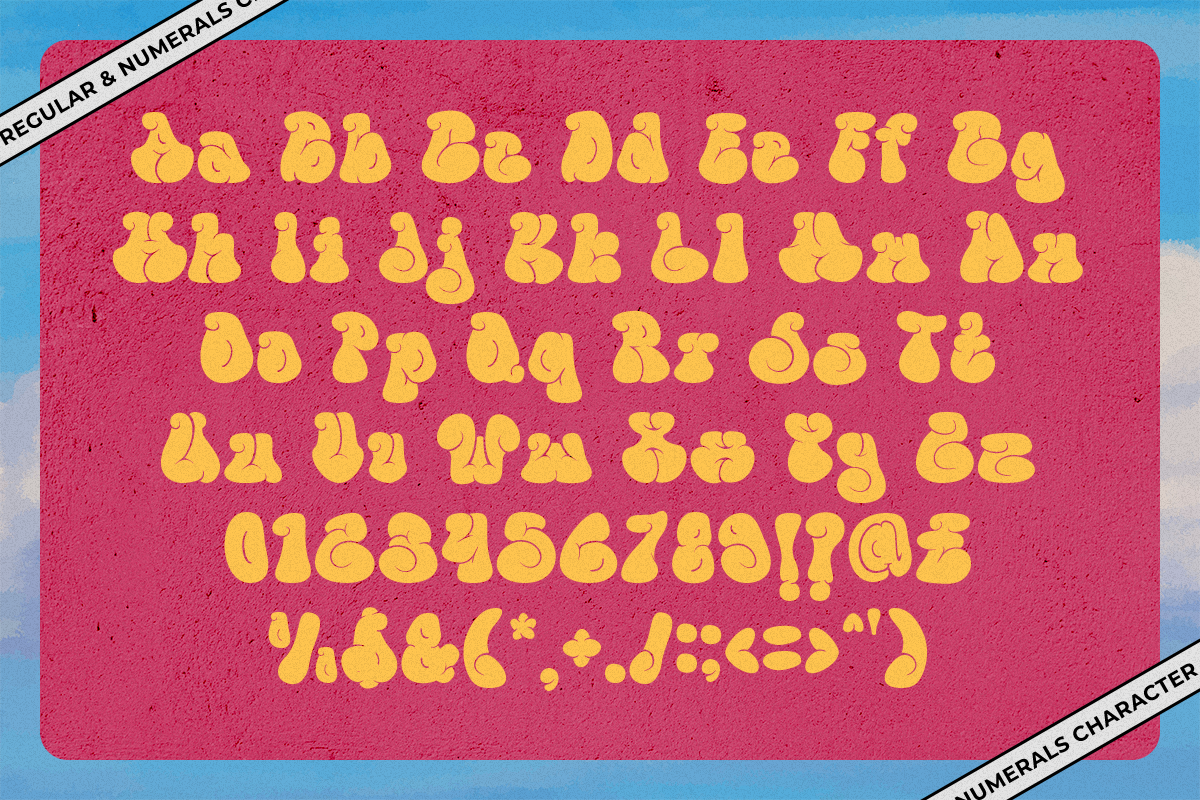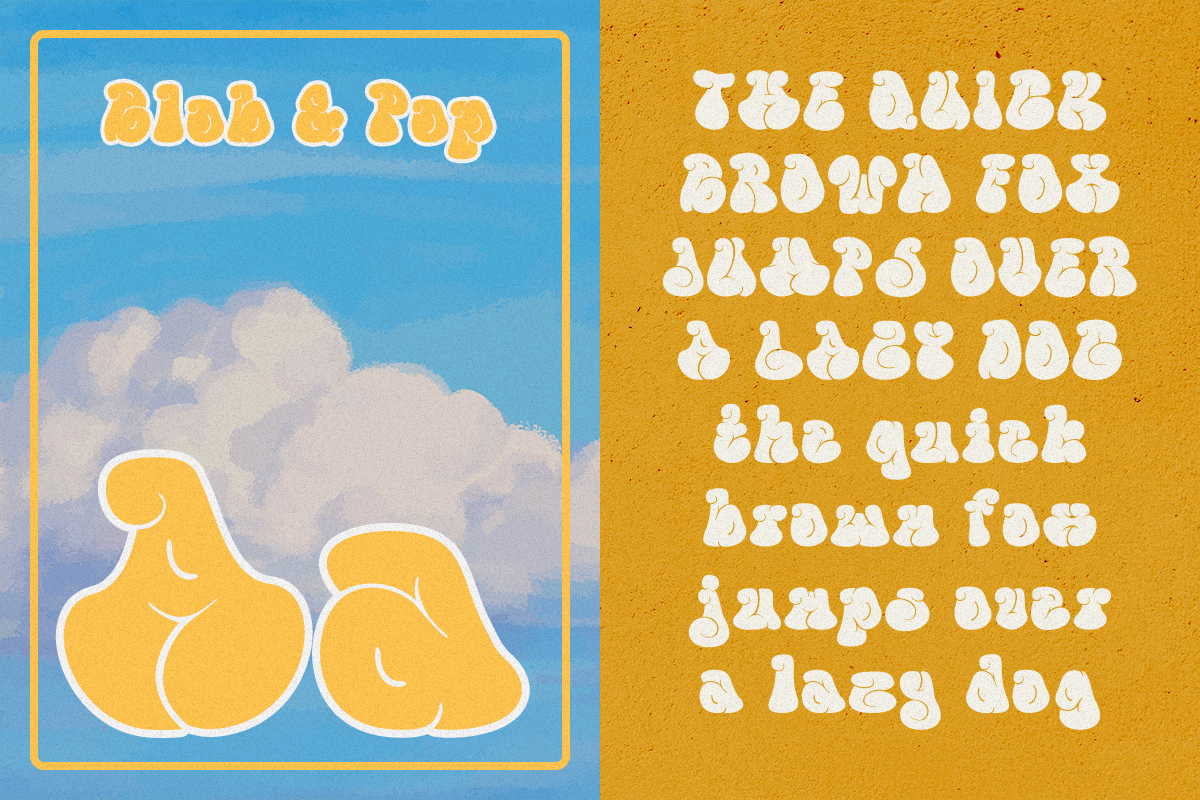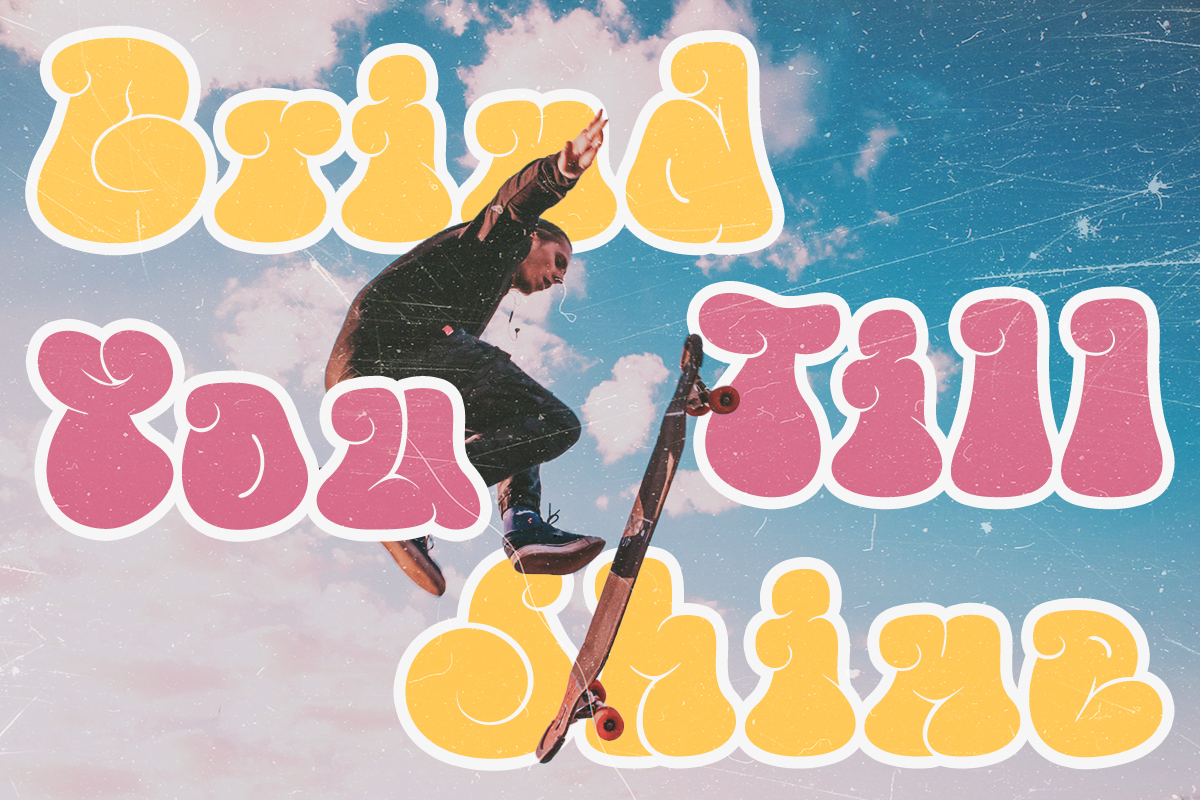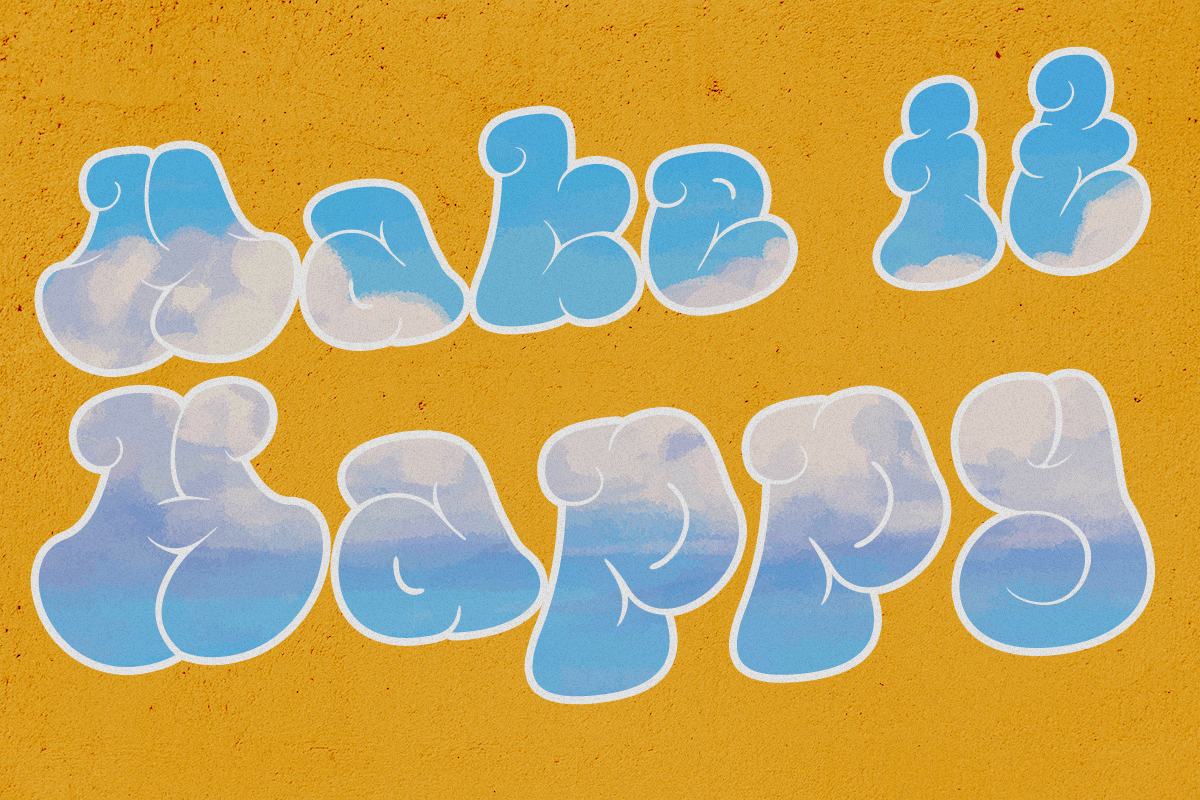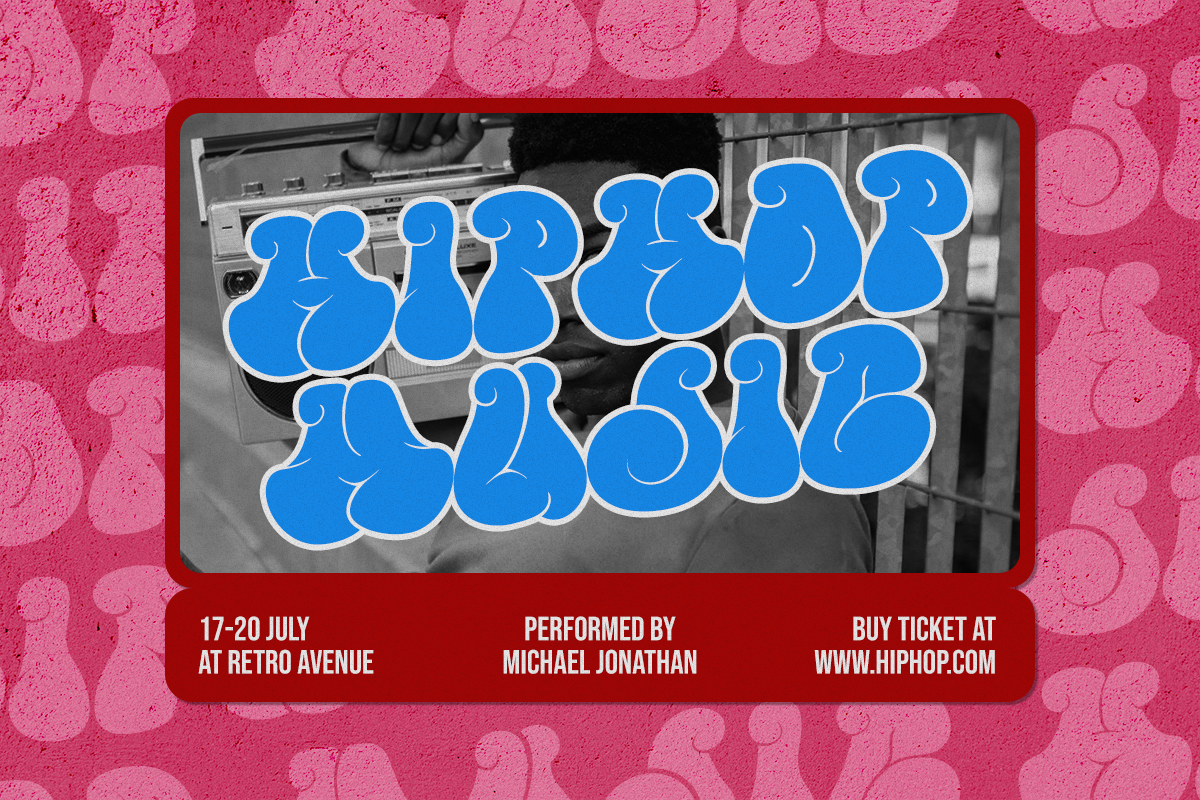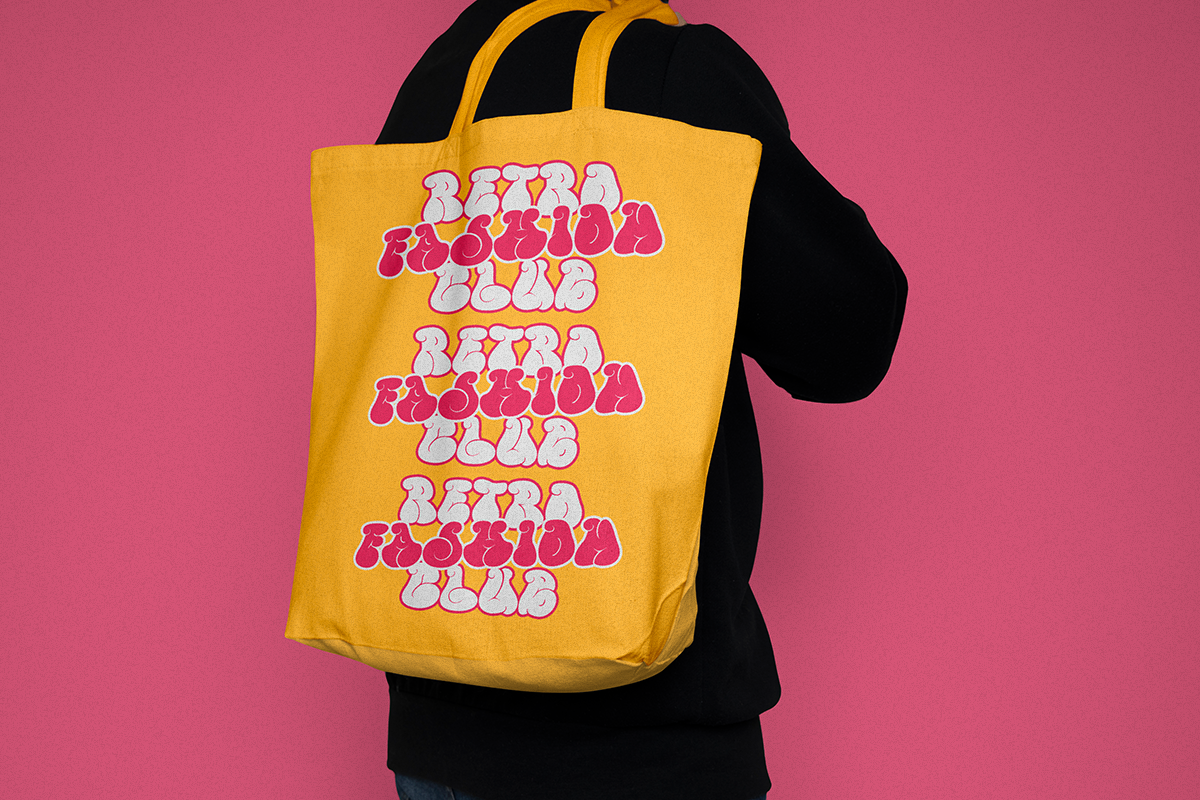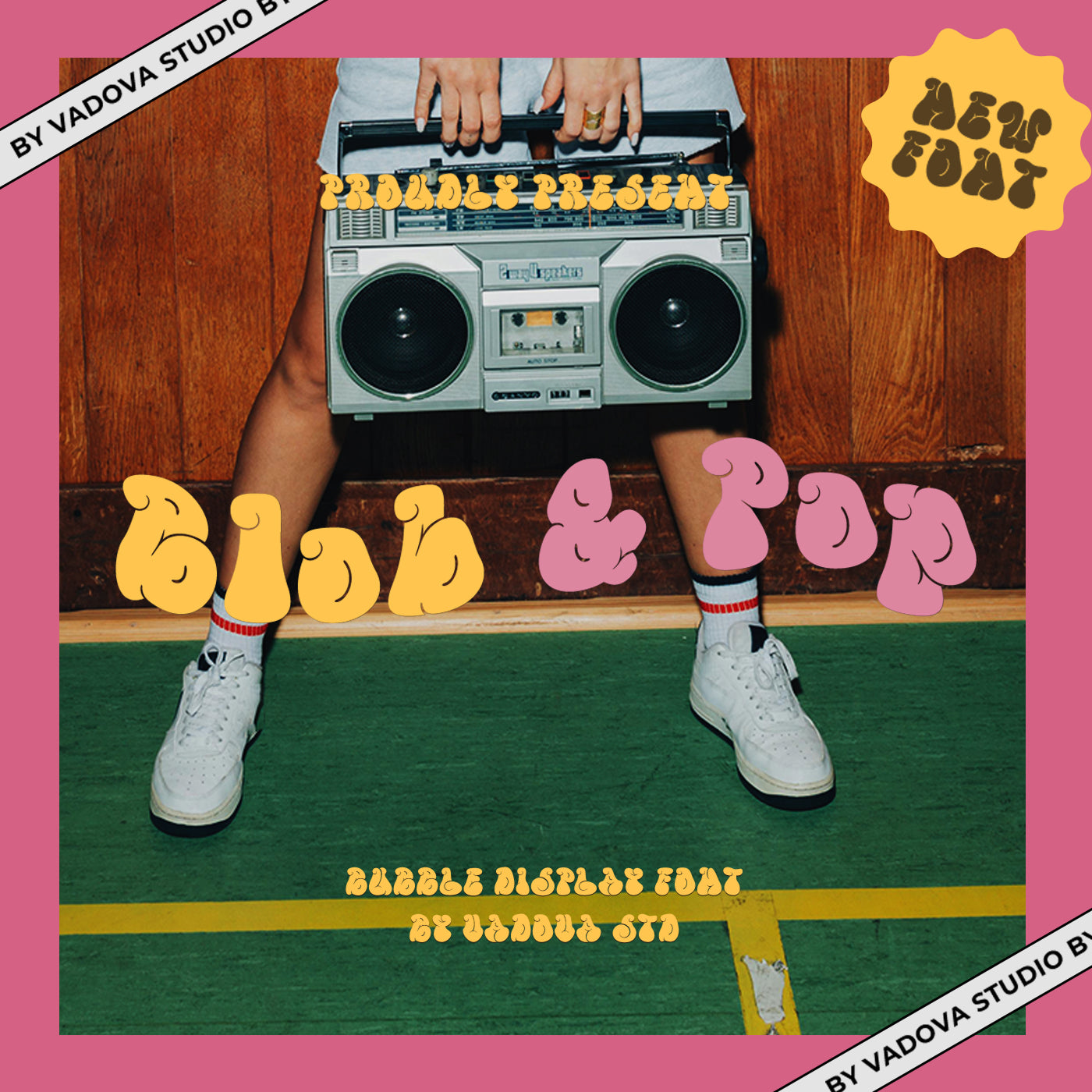
Blob & Pop Bubble Display Font
Blob & Pop Bubble Display Font a bold and playful display font inspired by retro lettering, featuring chunky rounded forms, soft curves, and distinctive curled terminals that give each character a lively personality. Its organic shapes create a fun, expressive appearance while maintaining strong visual presence at large sizes. The font is especially effective for headlines, posters, apparel graphics, music artwork, packaging, stickers, and other designs that need a colorful retro-inspired character.
Suitable For Ideal for music posters, apparel and merchandise, packaging, stickers, event graphics, album artwork, social media campaigns, branding, and promotional designs. It works best when used as a prominent headline or statement typeface where its bold rounded shapes and retro personality can become the main visual element.
Blob & Pop Bubble Display Font is a retro-inspired typeface featuring chunky rounded forms, soft curves, and curled terminals. It includes uppercase and lowercase characters, numerals, and punctuation, available in TTF, OTF, and WOFF formats.